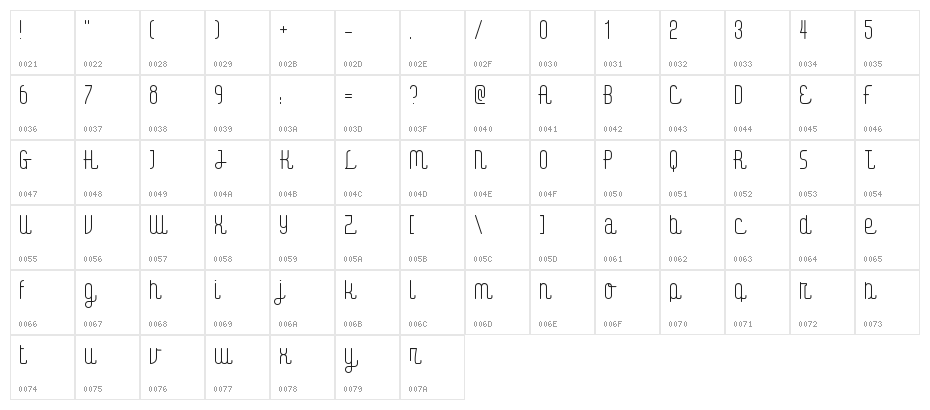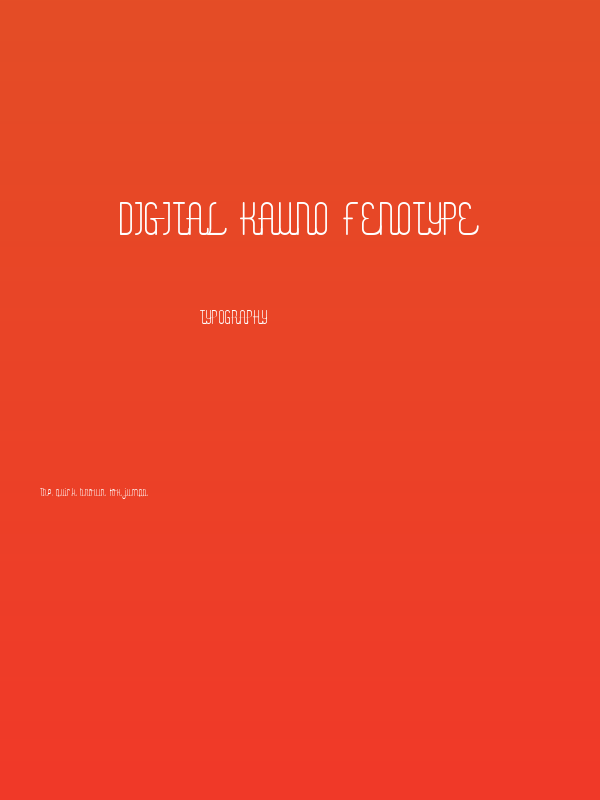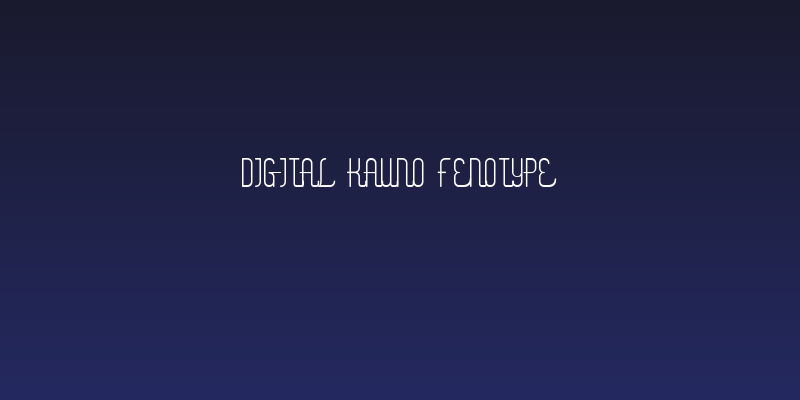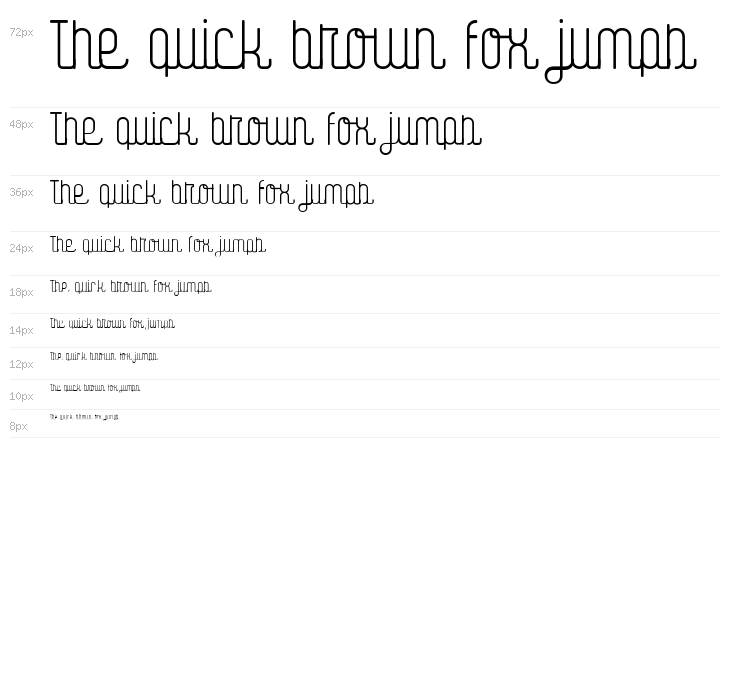
Digital Kauno fenotype Font
Digital Kauno fenotype Description
This font features a unique and modern design with a geometric and modular structure. The characters are composed of continuous, unbroken lines that create a sense of fluidity and movement. The uppercase and lowercase letters maintain a consistent height, giving the font a uniform appearance. The numerals and special characters follow the same design principles, ensuring a cohesive look across all glyphs. The font's style is both futuristic and minimalistic, making it suitable for contemporary design projects.
| Use Case | Logos, Headlines, Digital Interfaces |
| Proposed Projects | Ideal for digital interfaces, tech branding, modern posters, and innovative product packaging. |